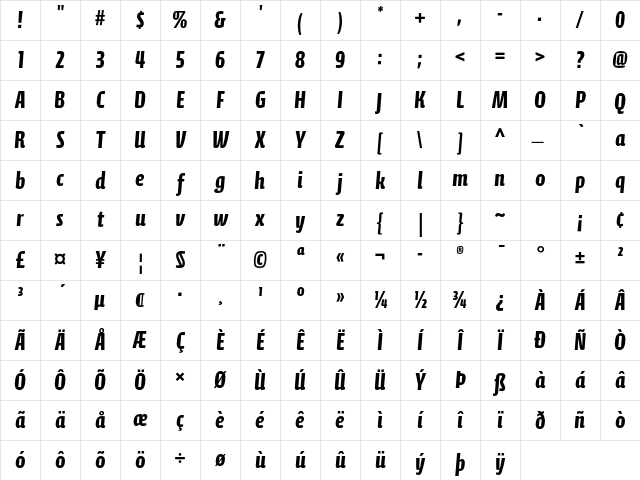
Calcite Pro Bold
Designer: Akira Kobayashi
Design Context for Calcite Pro
Calcite Pro is a composed and adaptable typeface that performs quietly and consistently across a wide range of design contexts. Its bold stroke weight gives it real presence on the page.